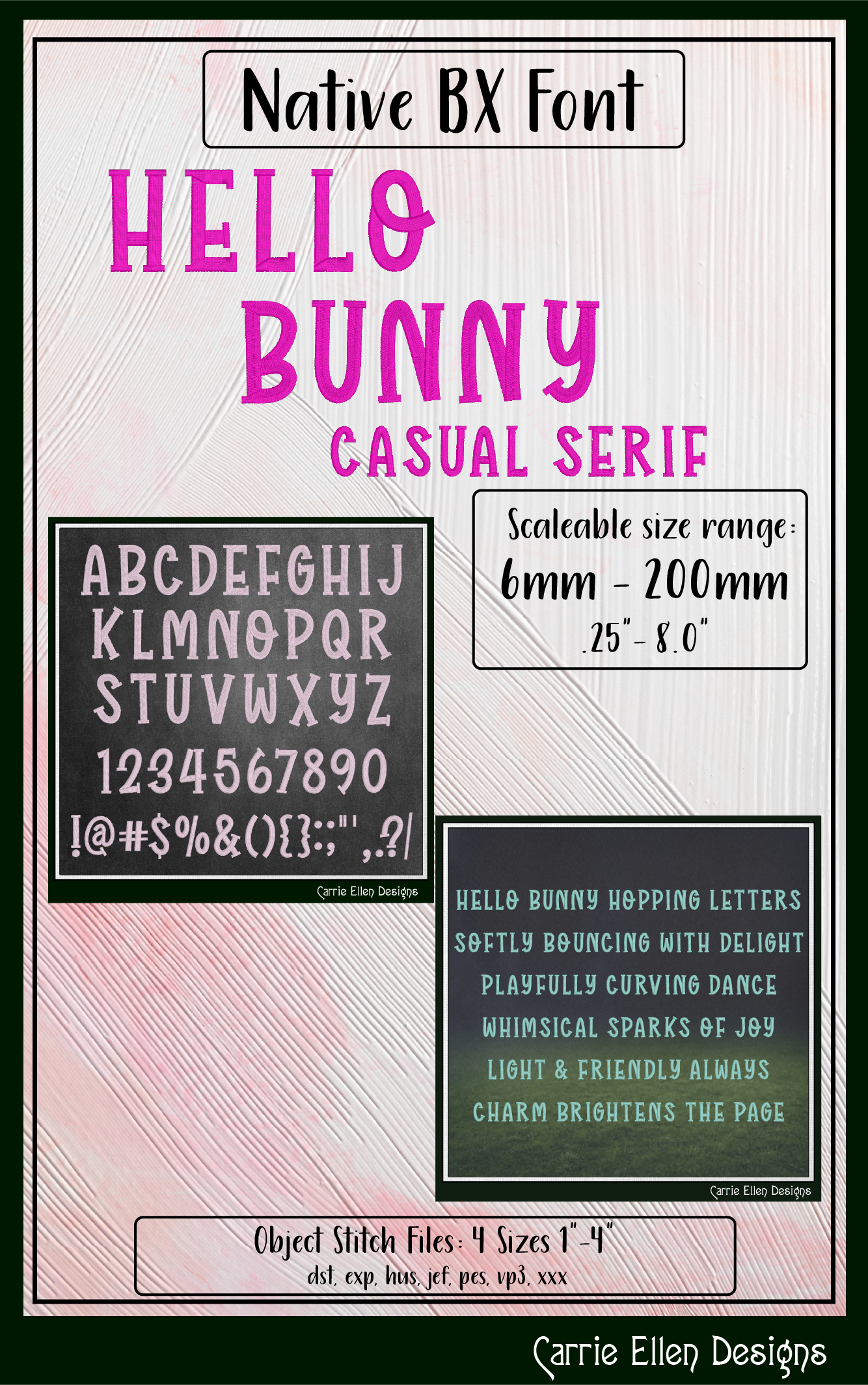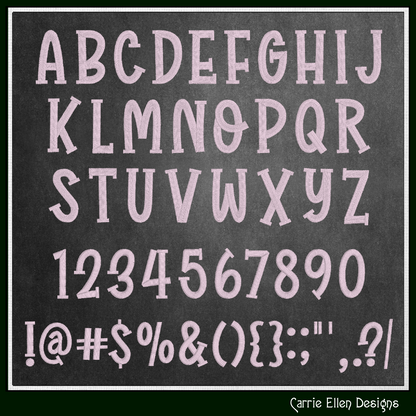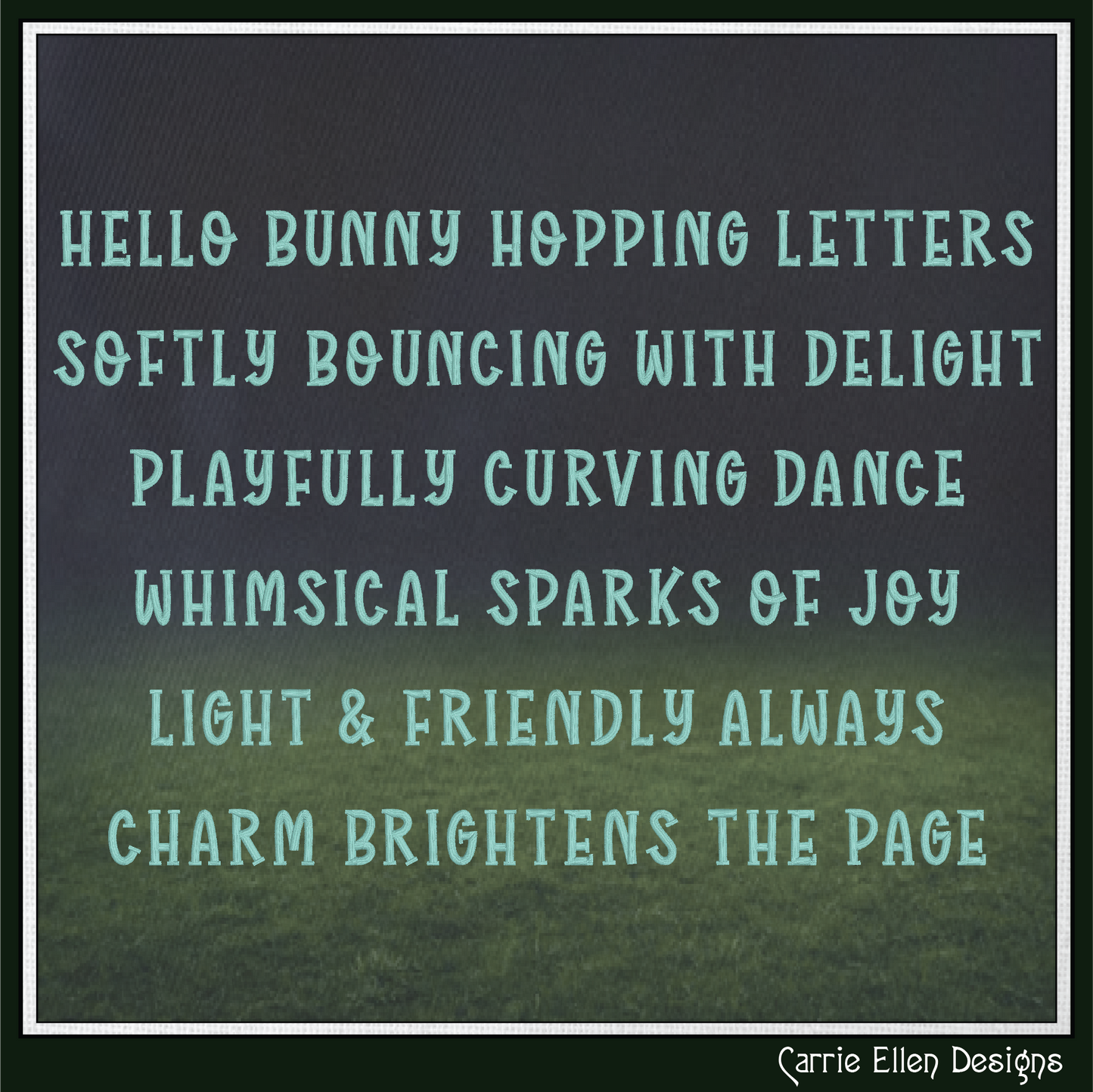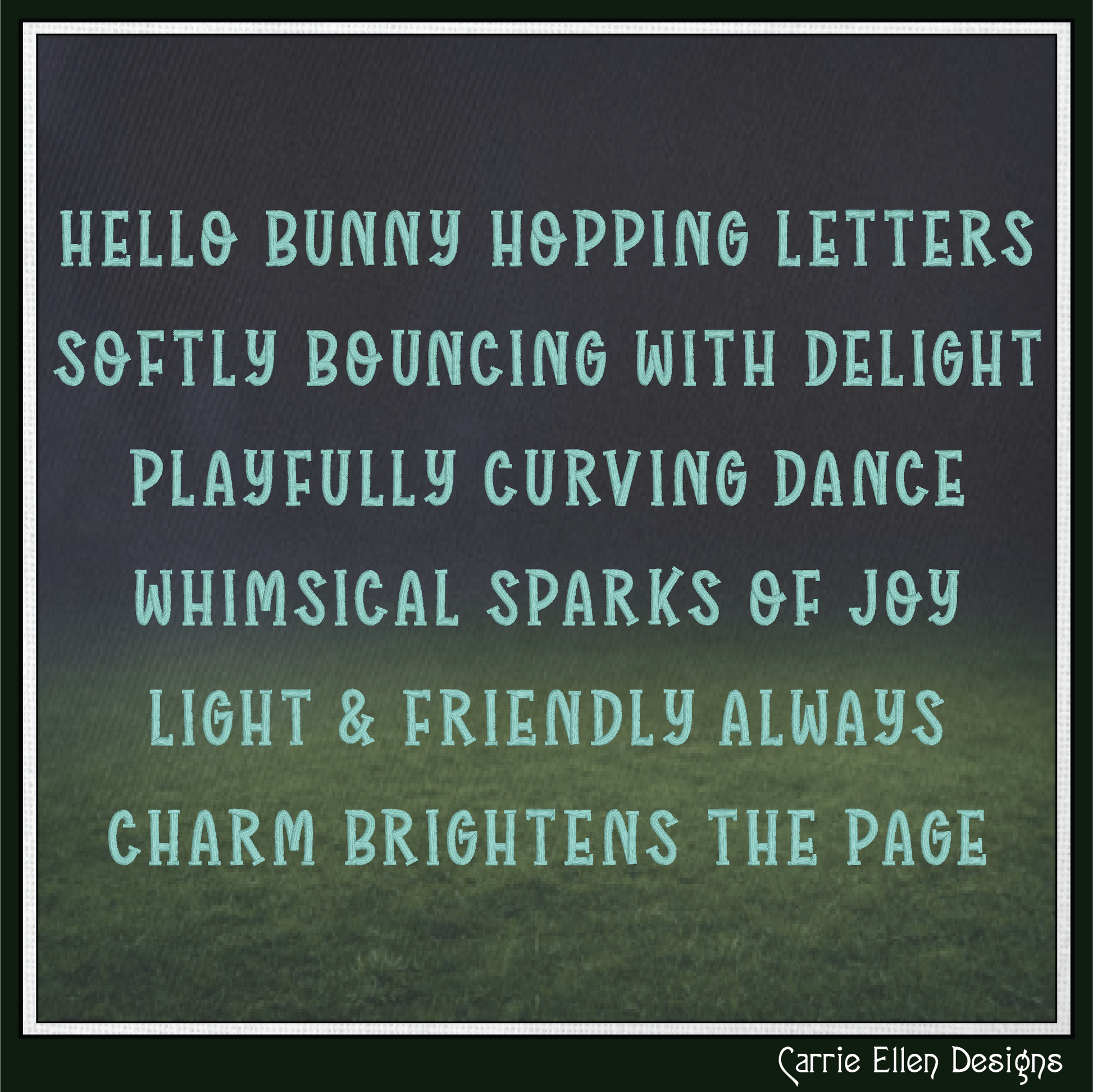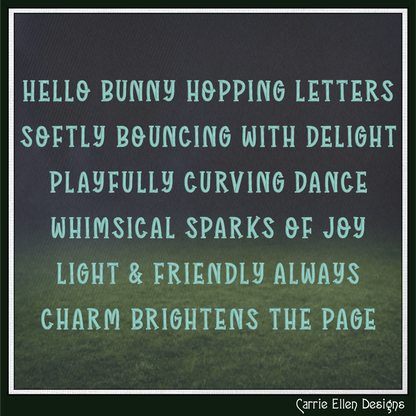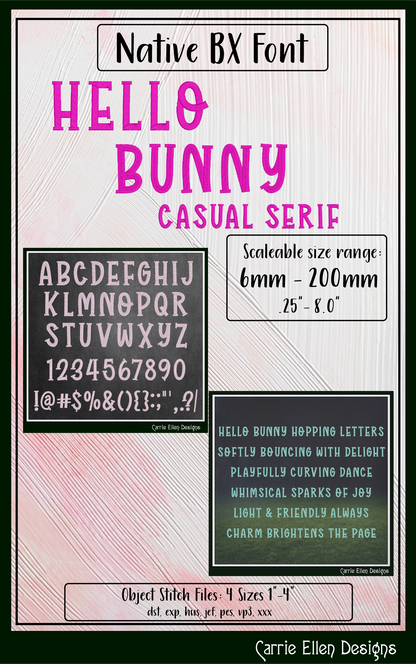
Sweet charm with a playful twist 🐰✨
The Hello Bunny Casual Serif BX Font is a delightful machine embroidery font featuring a soft, casual serif style with a friendly, approachable feel. Perfectly balanced between cute and classic, this font is ideal for adding personality to your embroidery projects without sacrificing readability.
Whether you're stitching baby gifts, boutique apparel, or everyday items, this versatile font brings a warm, whimsical touch to every project.
Font Features
• Casual serif style with playful character
• Clean satin stitch columns
• Balanced stitch density for smooth results
• Great for personalization and monograms
- Uppercase letters
- Numbers
- Basic punctuation
- Consistent styling across all characters